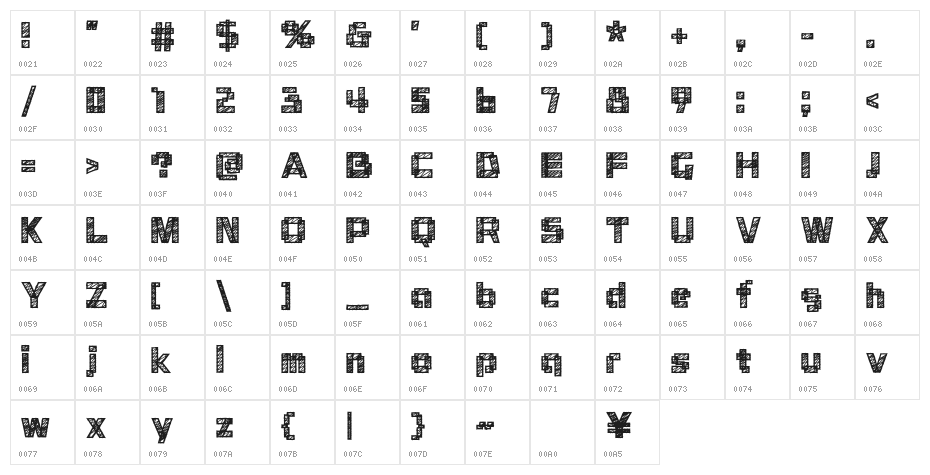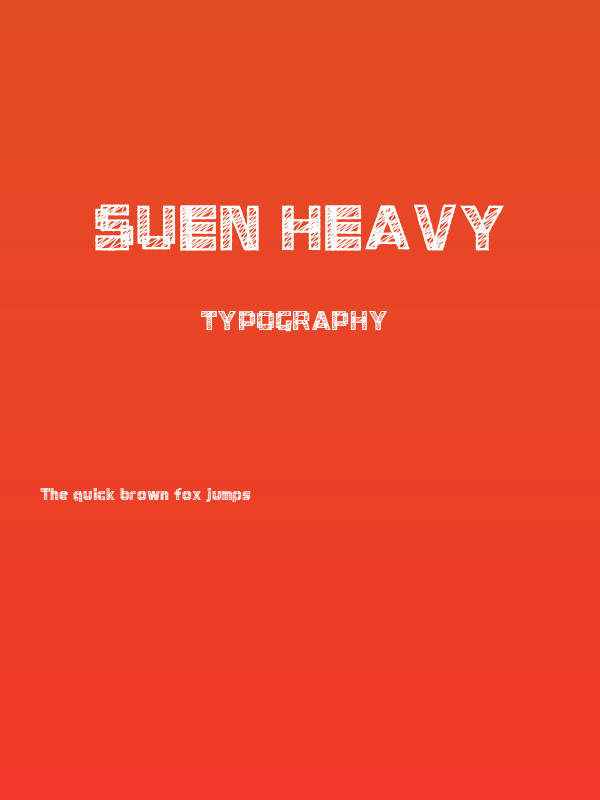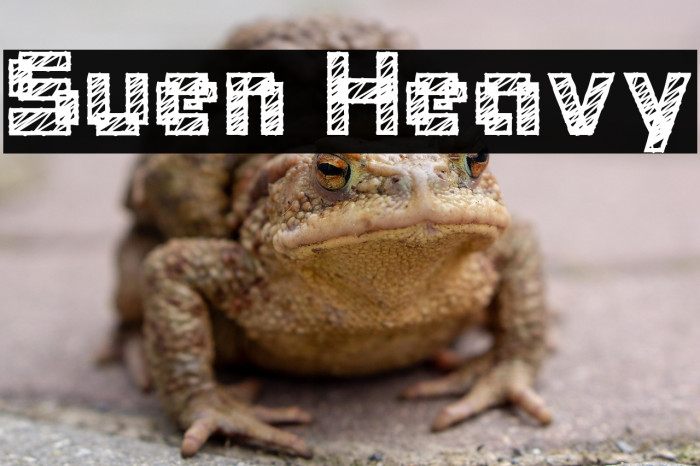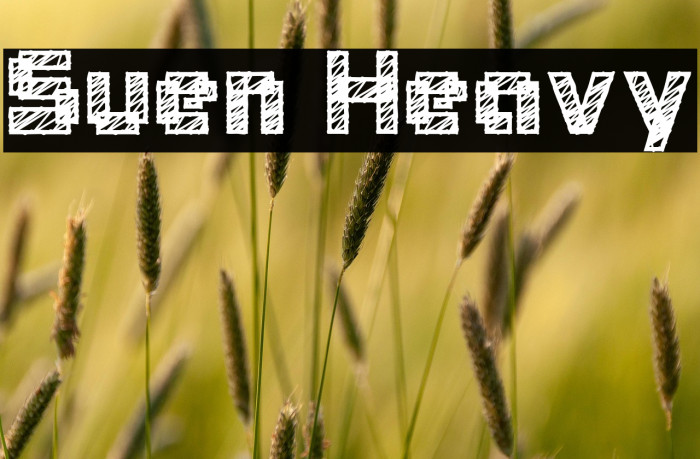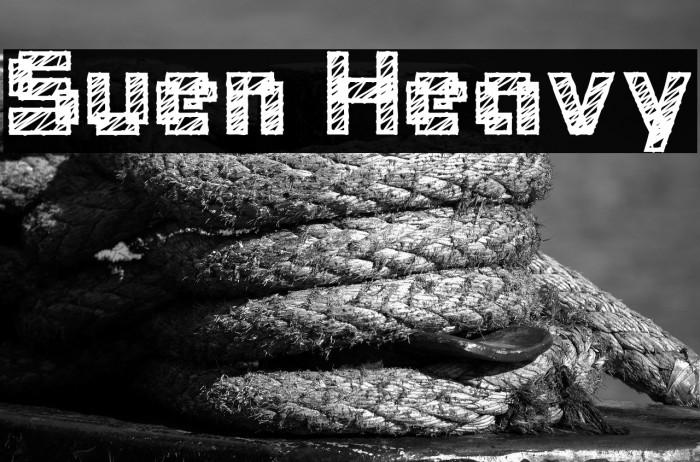
Suen Heavy Font
Suen Heavy Description
This font features a bold, hand-drawn style with a sketch-like appearance. Each character is filled with diagonal lines, creating a textured and dynamic look. The uppercase and lowercase letters maintain a consistent width, giving the font a uniform appearance. The numbers and special characters follow the same design, ensuring a cohesive style throughout. The font's unique, artistic flair makes it stand out, ideal for projects that require a creative and informal touch.
| Proposed Projects | Ideal for creative projects such as posters, album covers, and artistic branding materials. |